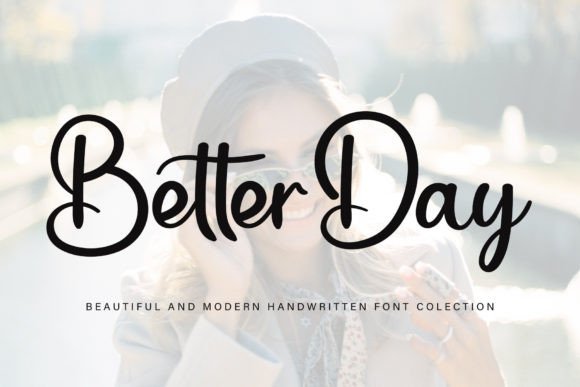
Dive into the realm of captivating typography with Better Day Font, a script font that dances across the screen with a free-spirited elegance. Let your designs blossom with this enchanting font, delicately crafted to infuse your creations with a touch of heartfelt charm.
Journey through the world of handwritten beauty, where each letter is a testament to artistic expression. Better Day Font beckons you to embark on a creative escapade, inviting you to pen heartfelt letters, craft bespoke invitations, design eye-catching food packaging, and fashion titles that speak volumes.
With Better Day Font as your creative companion, you'll discover a font that flows seamlessly from one character to the next, connecting your words with an undeniable grace. Its meticulously designed curves and flourishes add a touch of whimsy and sophistication to any project, making it the perfect choice for those seeking a font that truly stands out.
Picture the allure of a handwritten note, carrying your thoughts and emotions in a way that no other medium can. With Better Day Font, your words take on a new life, becoming expressions of art that resonate with your audience. Whether you're crafting a heartfelt letter to a loved one or designing an invitation that exudes elegance, this font will elevate your message and leave a lasting impression.
Step into a realm of endless possibilities with Better Day Font. Explore the art of stunning typography, where every word becomes a brushstroke of creativity. Let your imagination soar as you weave together tales of love, joy, and wanderlust. With this font by your side, your designs will blossom into masterpieces that captivate and inspire.